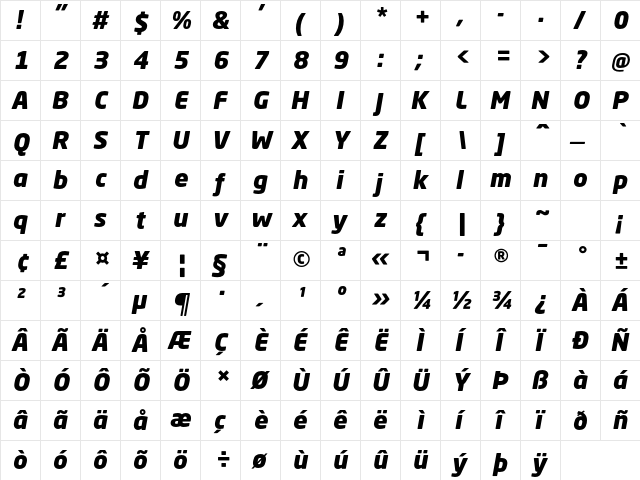
Neo Sans Std Black Italic
Design Context for Neo Sans Std Typeface
Neo Sans Std takes a measured approach to typography — its balanced proportions and neutral character make it a reliable workhorse for both digital and print work. The dynamic lean of this cut emphasises speed and emphasis in any layout.
Pro Tip: Try Neo Sans Std for annotation and caption copy alongside an upright companion — the contrast in angle creates a dynamic but ordered typographic system.